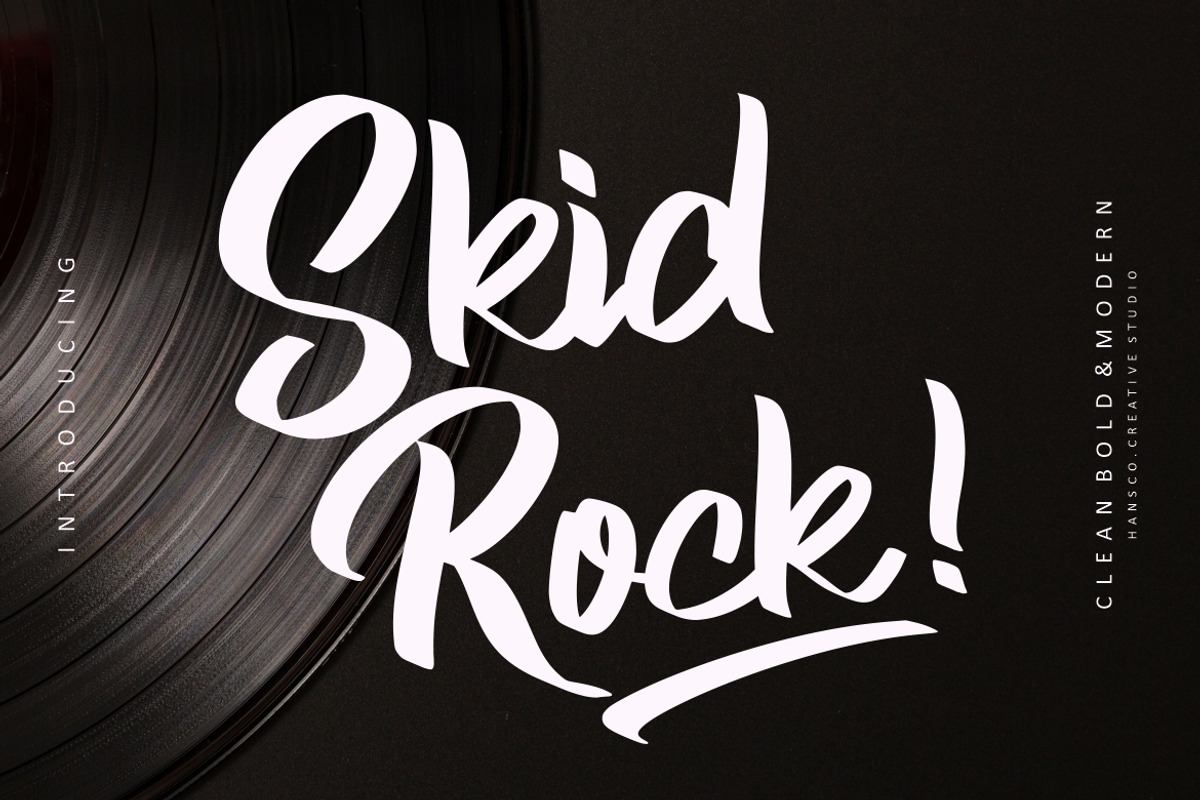
Skid Rock - Handwritten Font Free Download
Skid Rock - Handwritten Font is perfect for rock band branding, rebellious fashion labels, edgy poster design, alternative music promotions, skateboard graphics, underground event materials, gritty street art projects, raw music merchandise, rock concert graphics, rebellious youth campaigns, aggressive brand identities, and authentic rock communications.
Skid Rock - Handwritten Font is exciting because it embodies the raw energy and rebellious spirit of rock culture through its gritty handwritten letterforms that capture the authentic edge of backstage band signatures, concert setlists, and the untamed creativity that defines rock and roll rebellion. This powerful typeface features rough character strokes and aggressive handwriting details that reflect the unpolished authenticity and passionate intensity of rock music culture. The font's rebellious aesthetic speaks directly to audiences who live for authentic rock experiences and appreciate the raw power of uncompromising artistic expression.
Skid Rock - Handwritten Font includes comprehensive font families: Regular Rock Style, Bold Heavy Weight, Light Grunge Touch, Medium Raw Balance, Italic Aggressive Slant, Condensed Tight Format, Extended Wild Width, Distressed Battle Version, Scratched Alternative Style, and Special Rock Symbols, providing complete solutions for rock music and rebellious design projects that demand authentic edge and uncompromising attitude.
This powerful typography solution transforms ordinary communications into raw rock experiences through its authentic rebellious aesthetic and gritty handwritten character. Skid Rock - Handwritten Font Free Download enables designers and rock brands to access premium rebellious typography that instantly adds authenticity, edge, and rock attitude to any creative project. The font's carefully crafted gritty elements ensure genuine rock character while maintaining readability and distinctive rebellious presence.
Rock bands, alternative brands, and rebellious businesses trust Skid Rock - Handwritten Font for its ability to communicate authenticity, rebellion, and rock culture values to audiences seeking genuine alternative experiences and uncompromising artistic expression. The typeface's raw construction performs exceptionally well across various applications, from intimate rock communications to large-scale rebellious campaigns. Its extensive character support includes multilingual capabilities and rock-themed design elements that enhance authentic alternative brand presentations.
The creative inspiration behind Skid Rock - Handwritten Font draws from backstage rock culture, handwritten band signatures, and the authentic spirit of rock rebellion that continues to inspire generations of musicians and fans. This rebellion-focused approach creates a font that feels genuinely rock while maintaining contemporary relevance across different alternative contexts and rebellious brand expressions.
Whether creating rock band identities, alternative fashion materials, or rebellious marketing campaigns, this handwritten font delivers exceptional results that capture the essence of authentic rock culture and rebellious spirit. Download Skid Rock - Handwritten Font today and discover how premium rock typography can transform your design projects into powerful expressions of rebellion, authenticity, and the raw energy that defines the most genuine rock and alternative brand communications.